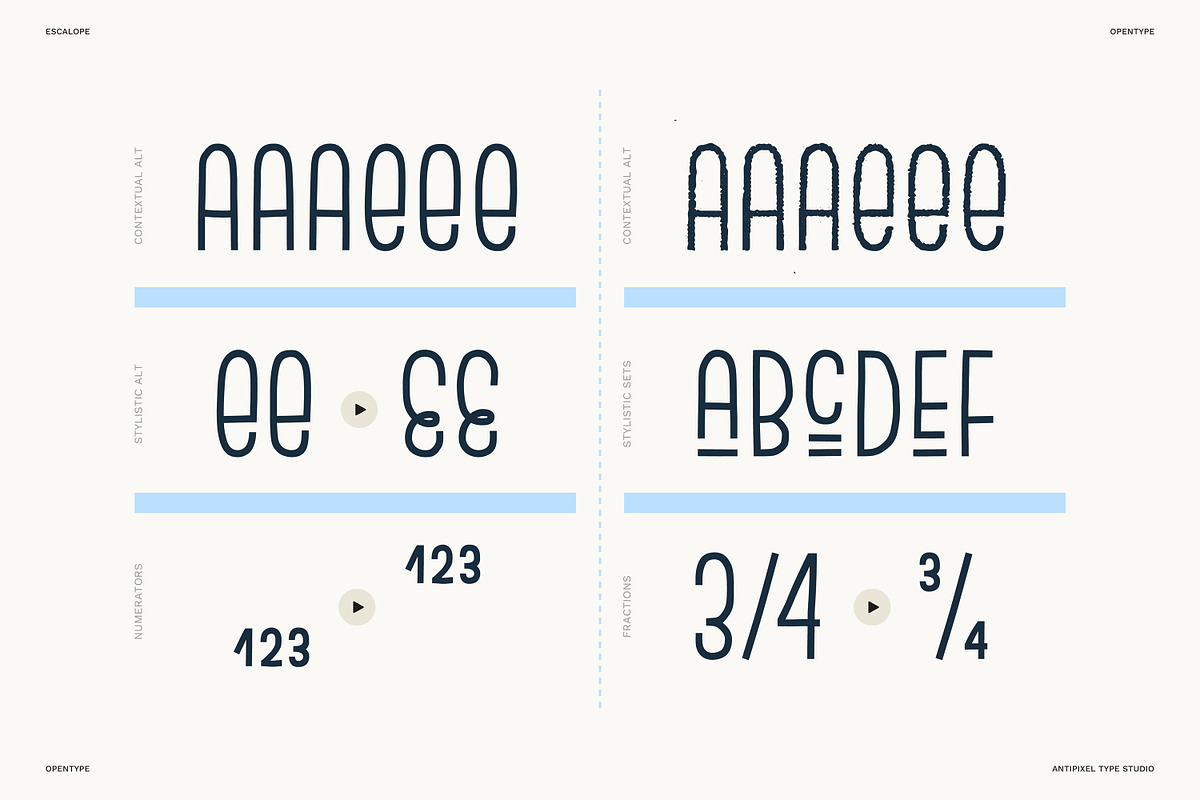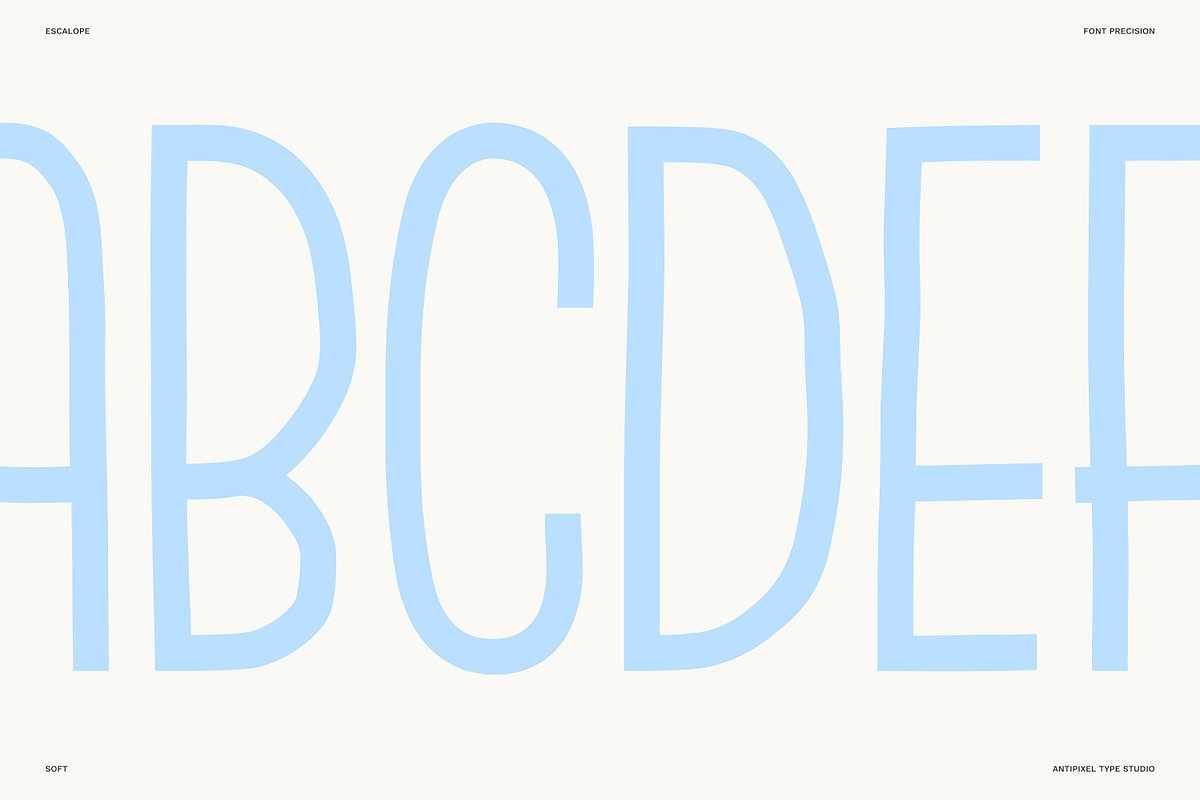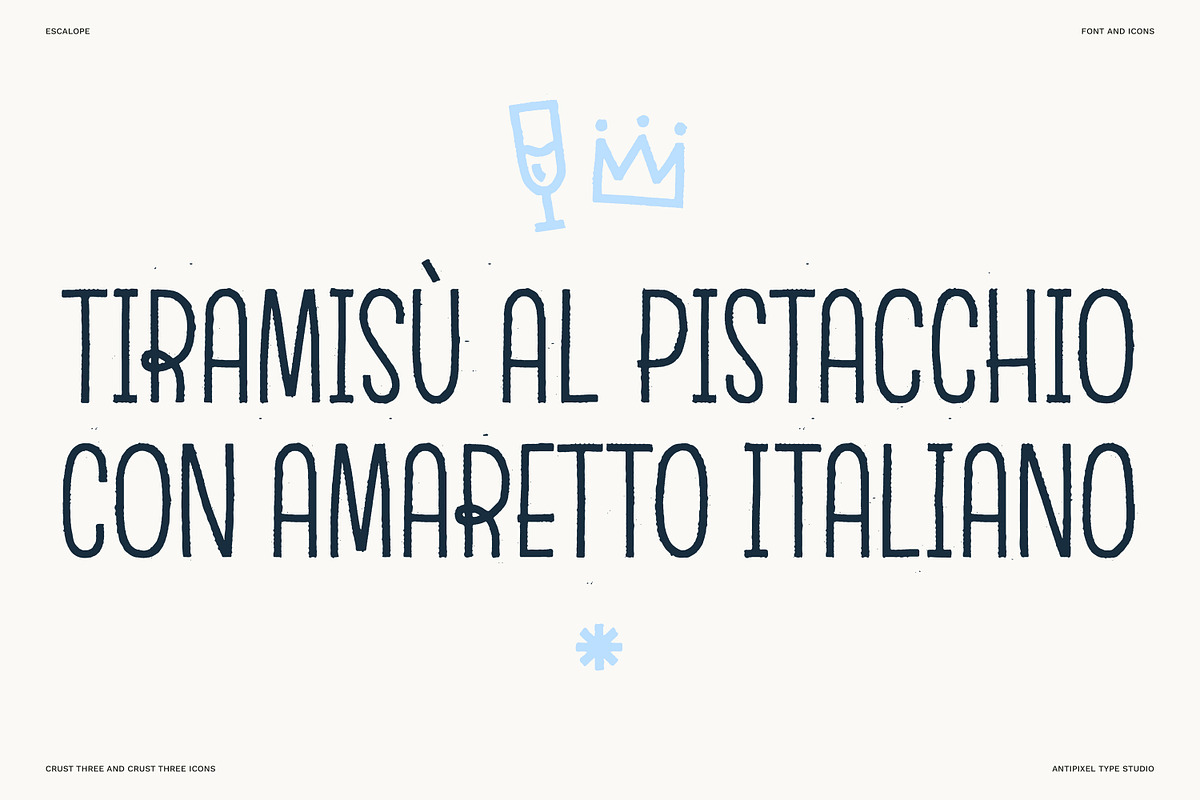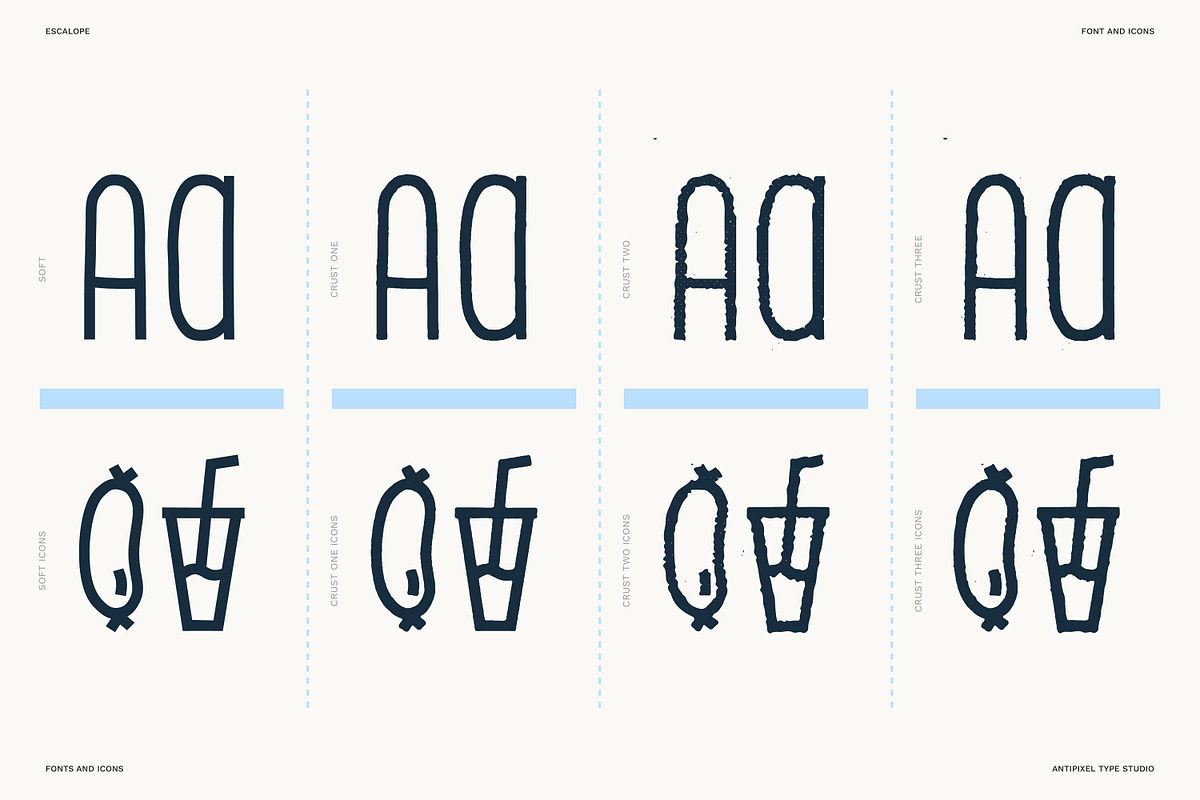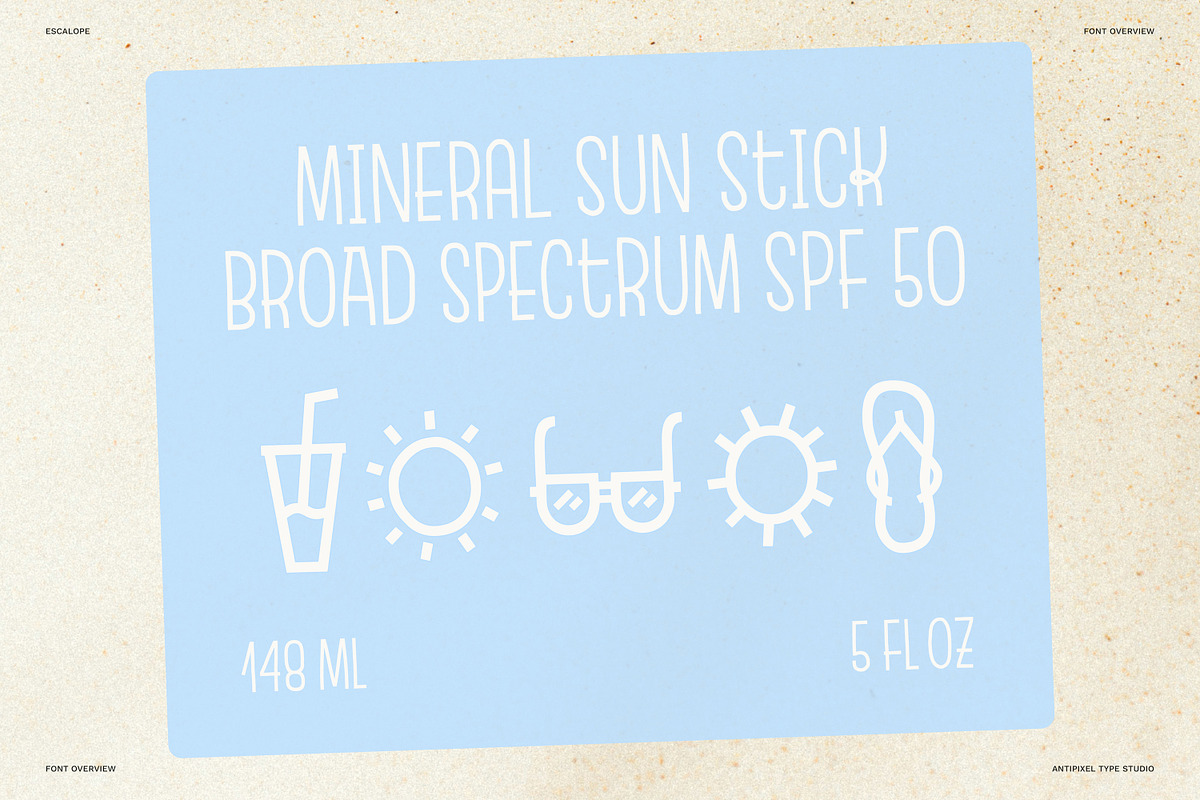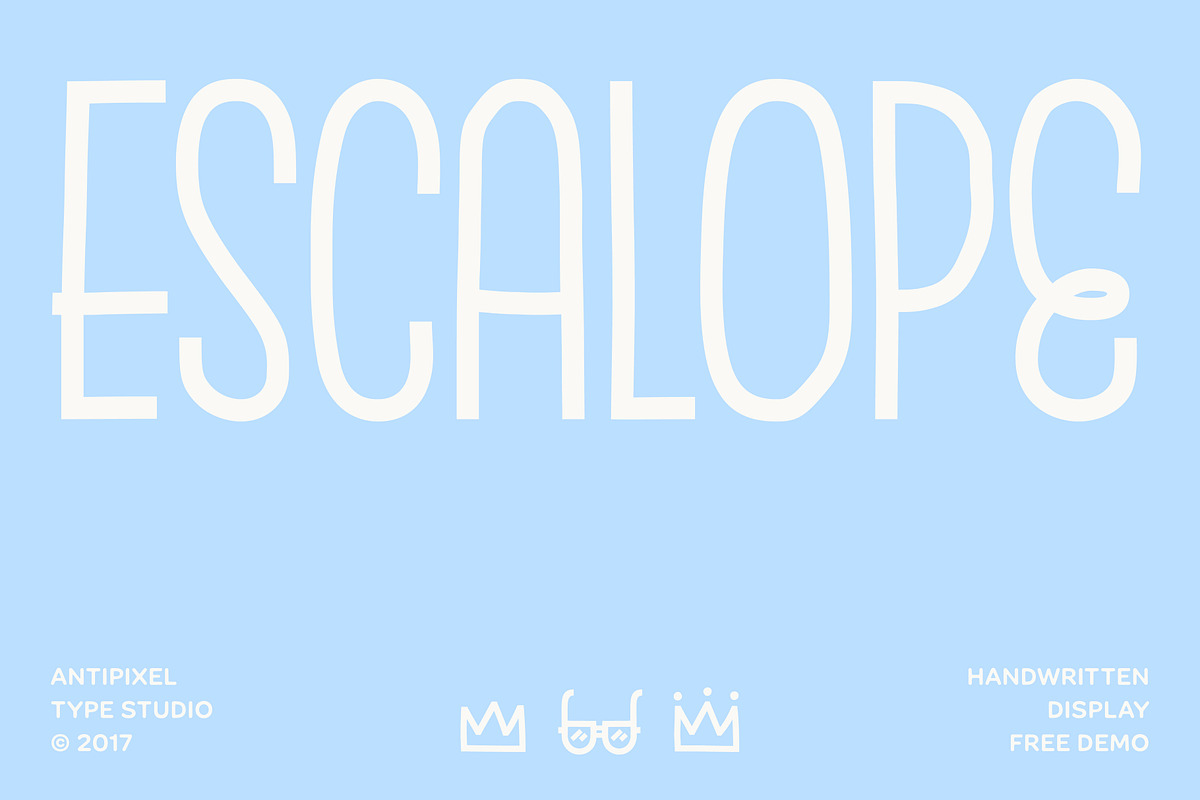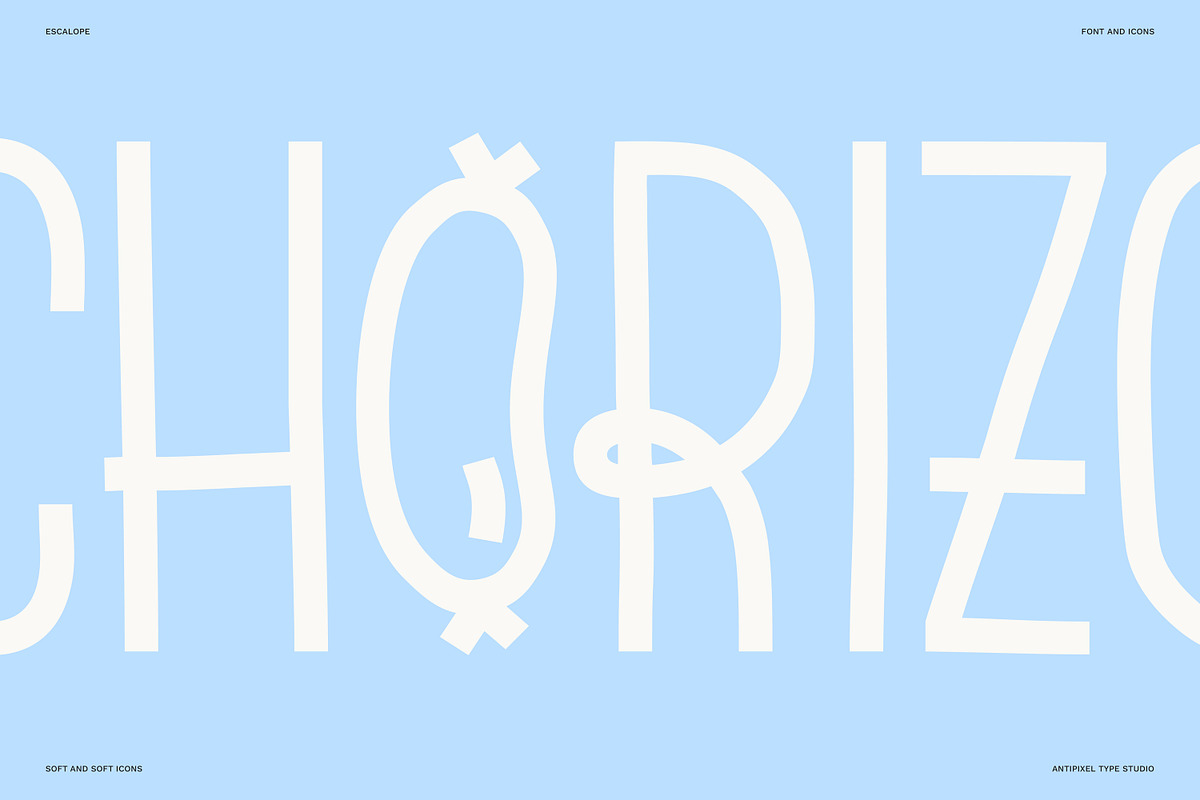
Escalope | Handwritten Fun Display
Introducing Escalope, a hand-drawn font with a cute, quirky, and unique personality: low midline, unicase, all-caps, matching icons, textures, and the playful Stylistic Sets.
'Escalope Soft' has smooth outlines and sharp terminals. 'Escalope Crust One' is relatively clean but rugged, with an ink stamp outcome. 'Escalope Crust Two' is harsh in texture, with large coarse grains in its jagged outlines. 'Escalope Crust Three' is rather heavy-built, stout, defined, and less grainy.
This type family has three alternating alphabets that slightly differ from one another. Thanks to the Contextual Alternates, the alphabets are automatically replaced, in turn, repeatedly to avoid the same letterforms and textures appearing next to each other.
Stylistic Sets are also available. SS01 has underlined characters, SS02 has double-underlined characters, and SS03 has a mixture of graphic ornaments. These Sets can be used separately or combined. If the Contextual Alternates are running, the Stylistic Sets will alternate automatically.
Escalope includes a set of 150 icons consistent with the four styles of the typeface. They share weight, texture, and font characteristics for a perfect match.
Numbers, punctuation, ligatures, alternates and stylistic sets, and more!
Language Support: Western Europe, Central/Eastern Europe, Vietnamese, Baltic, Turkish, Romanian.
OpenType: Contextual Alternates, Stylistic Set 1, Stylistic Set 2, Stylistic Set 3, Subscript, Scientific Inferiors, Superscript, Numerator, Denominator, Fractions, Ordinals.